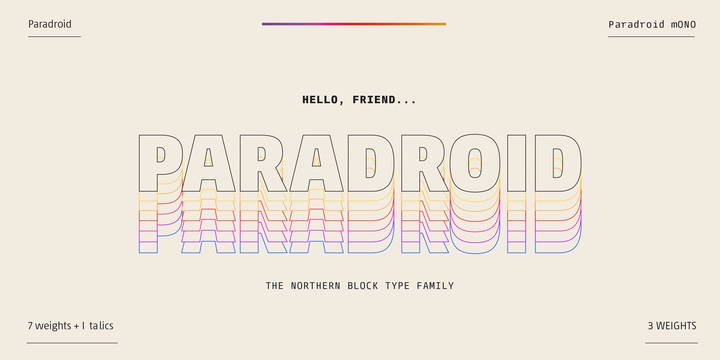
Paradroid Font
Paradroid Font is perfect for cybernetic research branding, android development companies, artificial intelligence startups, robotic engineering firms, sci-fi gaming interfaces, futuristic technology marketing, automated systems documentation, and cybernetic enhancement communications where paradoxical technology and android sophistication are emphasized.
What makes Paradroid Font so exciting is its paradoxical ability to blend human consciousness with mechanical precision through hybrid letterforms that embody the fascinating contradiction between organic thought and digital processing while maintaining exceptional clarity for technological communications. The cybernetic character design reflects the philosophical complexity and technological advancement that defines the convergence of human and artificial intelligence.
The Paradroid Font family includes thin, light, regular, medium, bold, and circuit variants, with android-inspired decorative elements and cybernetic ornaments that provide comprehensive tools for creating authentic AI branding and paradoxical technology design systems.
The font's hybrid character architecture and paradoxical proportions create immediate associations with android consciousness and cybernetic enhancement technologies. Each letterform has been designed to evoke the complex relationship between human intelligence and artificial processing that defines advanced AI development.
Paradroid Font excels in creating thought-provoking communications that explore the boundaries between human and artificial intelligence. The typeface's paradoxical character makes it ideal for AI research institutions, cybernetics companies, and technology philosophers targeting audiences fascinated by consciousness-machine convergence.
From neural interface developers to android ethics conferences, this font brings cybernetic credibility that appeals to audiences exploring the philosophical and technological implications of human-AI integration. The versatile design maintains its paradoxical character across both traditional research materials and modern digital AI platforms.